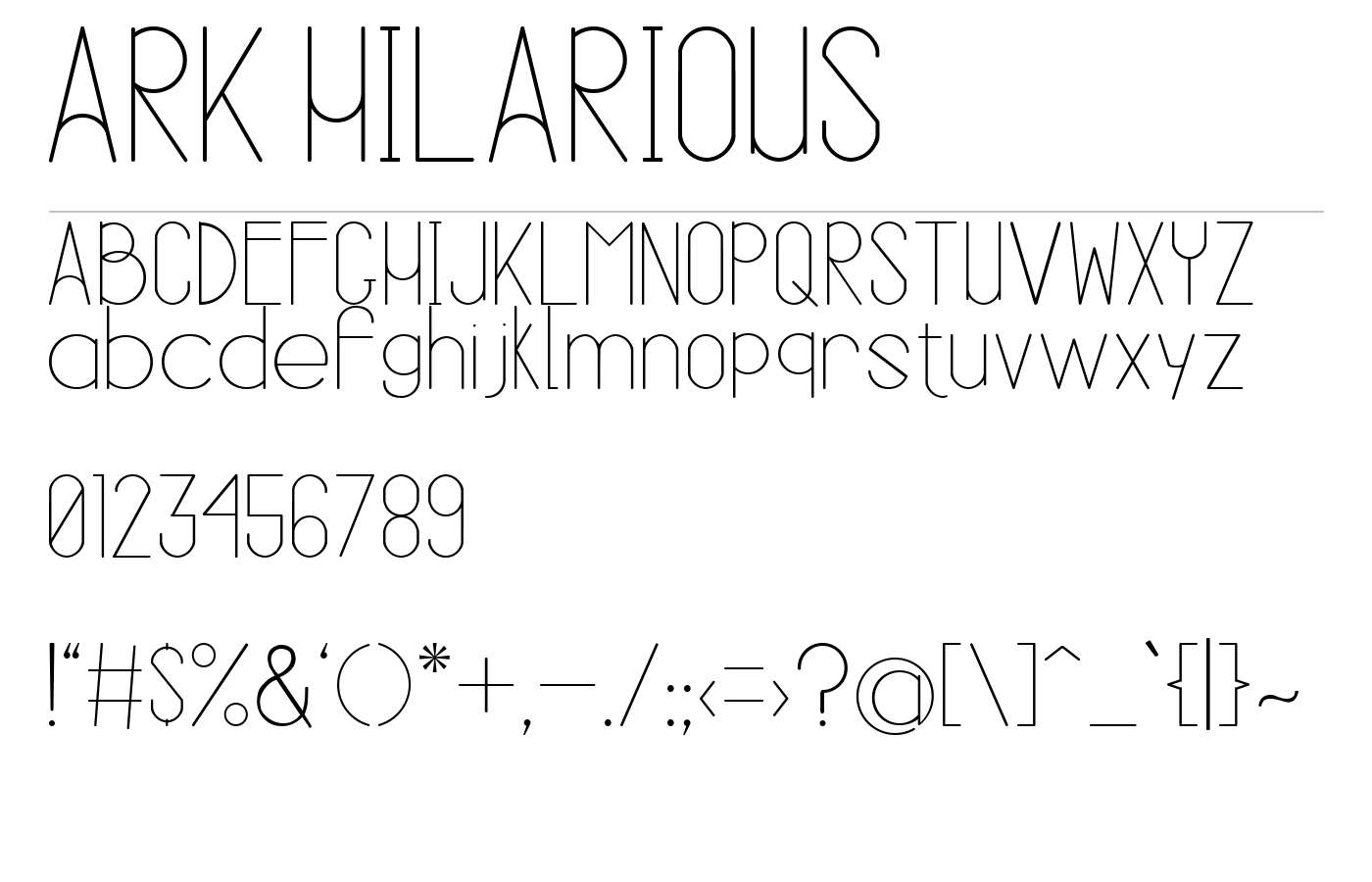
ARK HILARIOUS is a tall, ultra-light sans serif font with a quirky, modern personality. Its thin, geometric lines and balanced mix of rounded and angular shapes give it a playful yet elegant feel, making it perfect for creative headlines, logos, and designs that want to stand out with a fresh, fun vibe. This font works well in fashion, editorial, and branding contexts where a unique and stylish look is desired.
ARK HILARIOUS Font
About ARK HILARIOUS Font
| Font family | ARK HILARIOUS Font |
| Designer | ARK Ariq Aufa Muzakky |